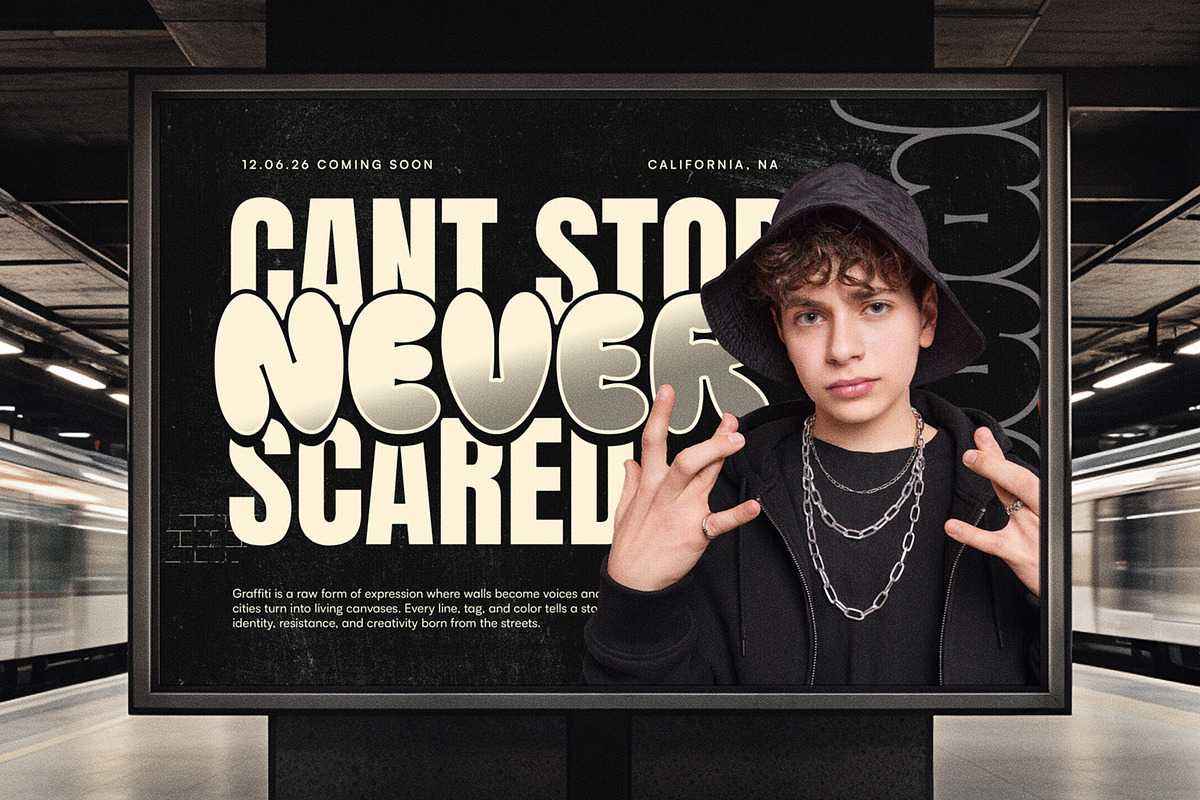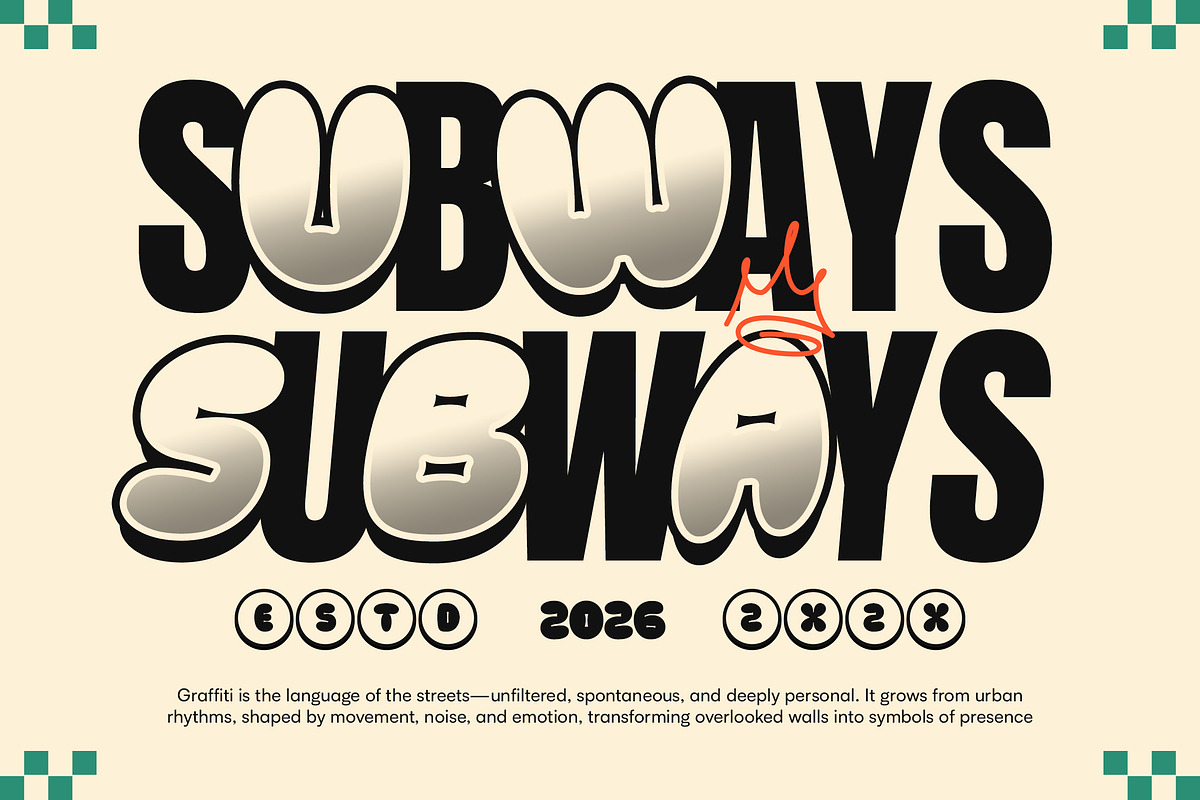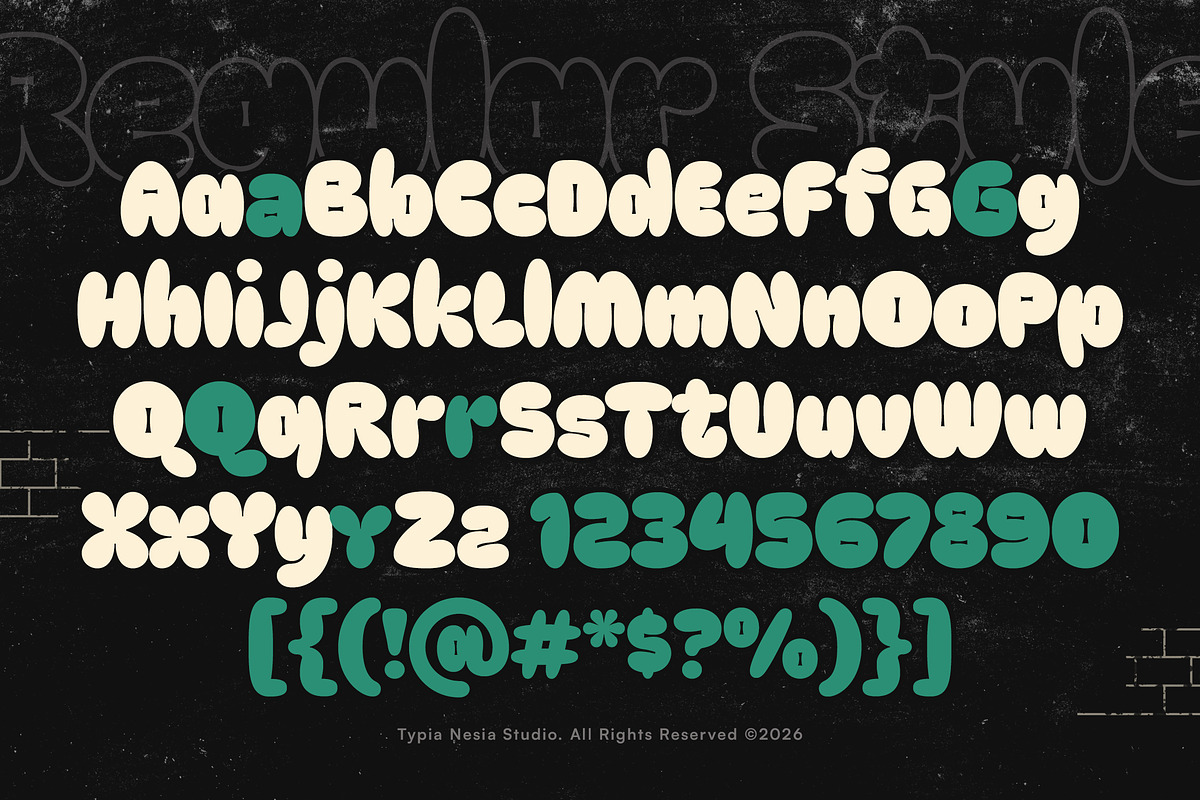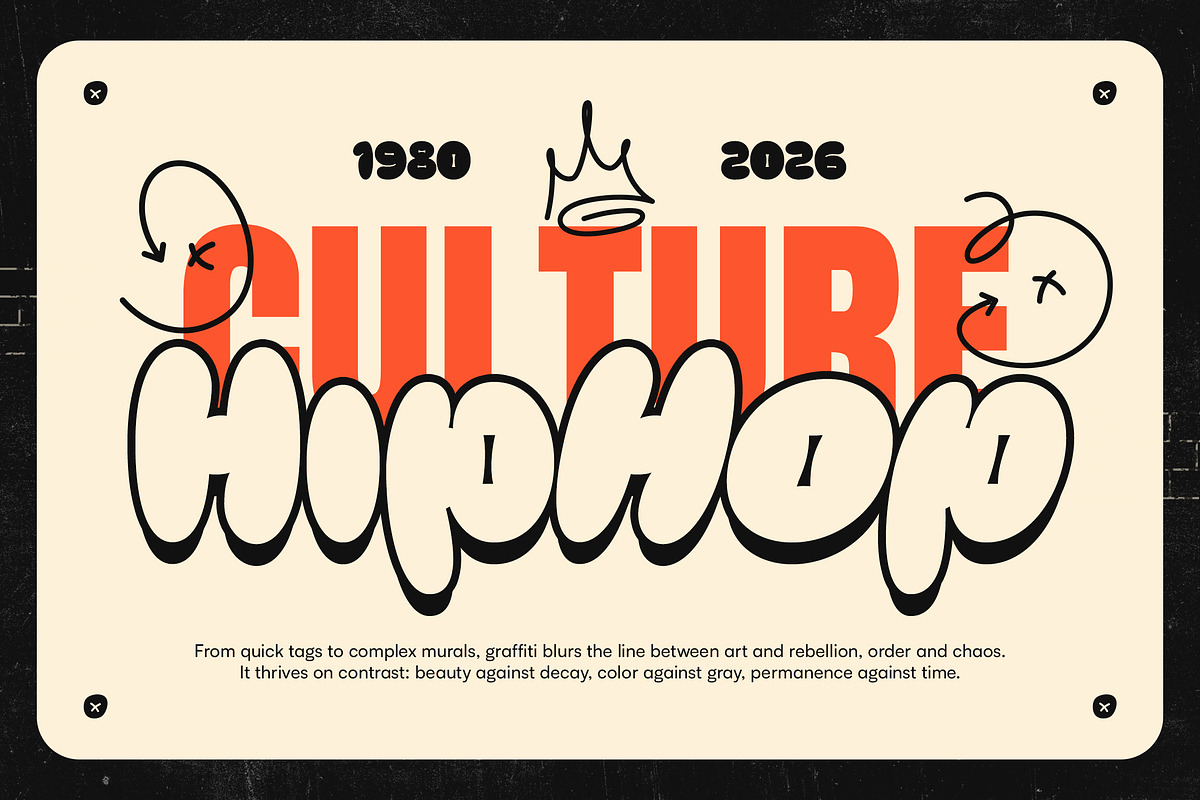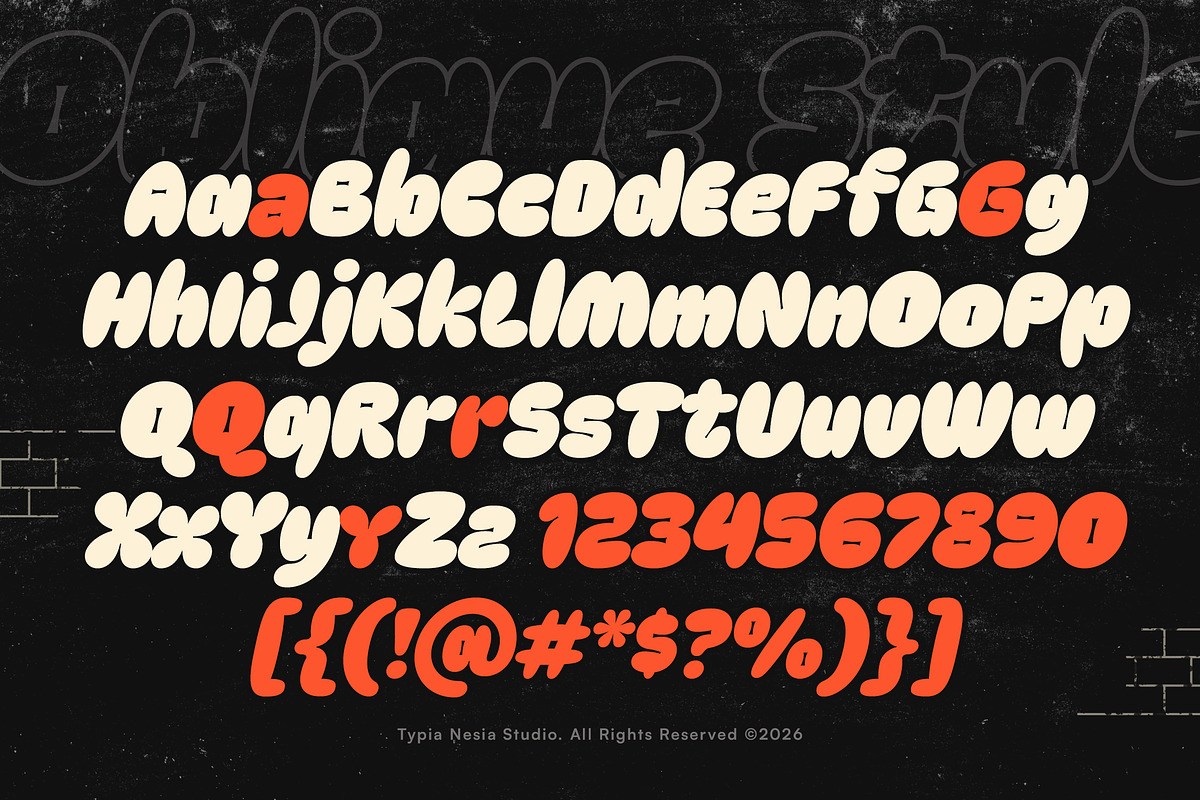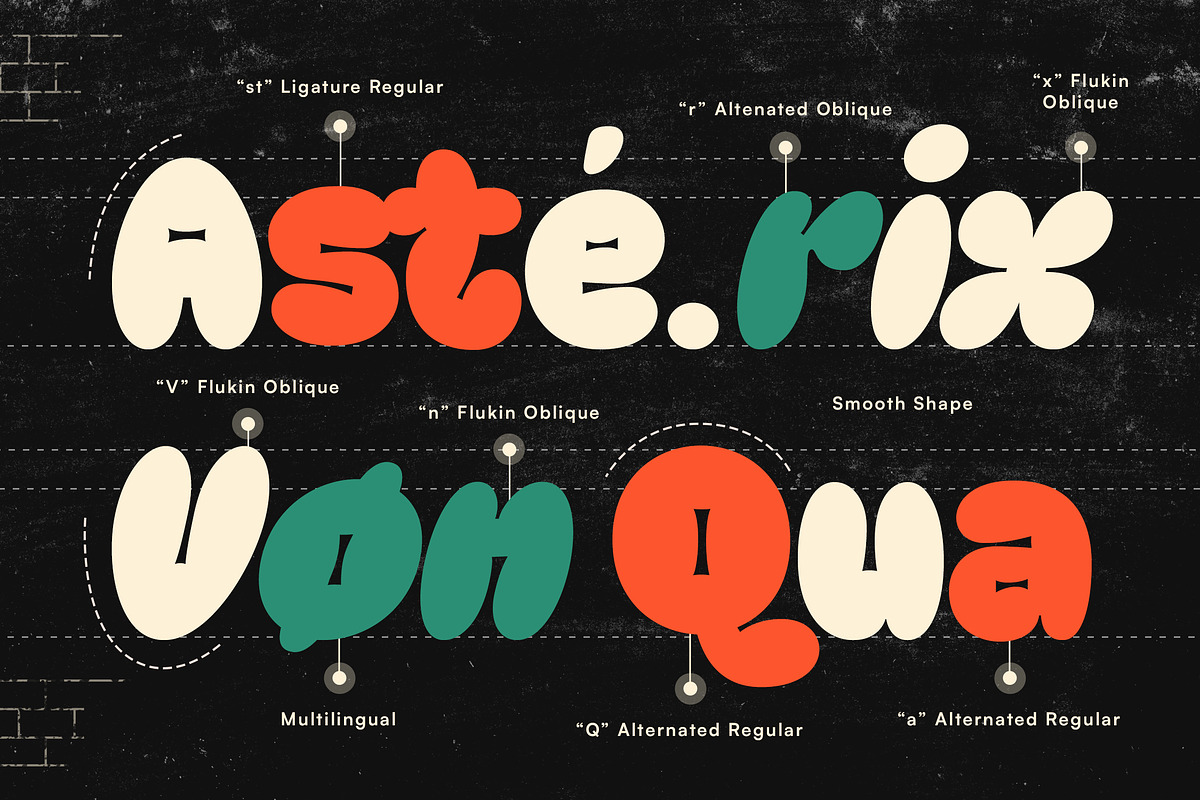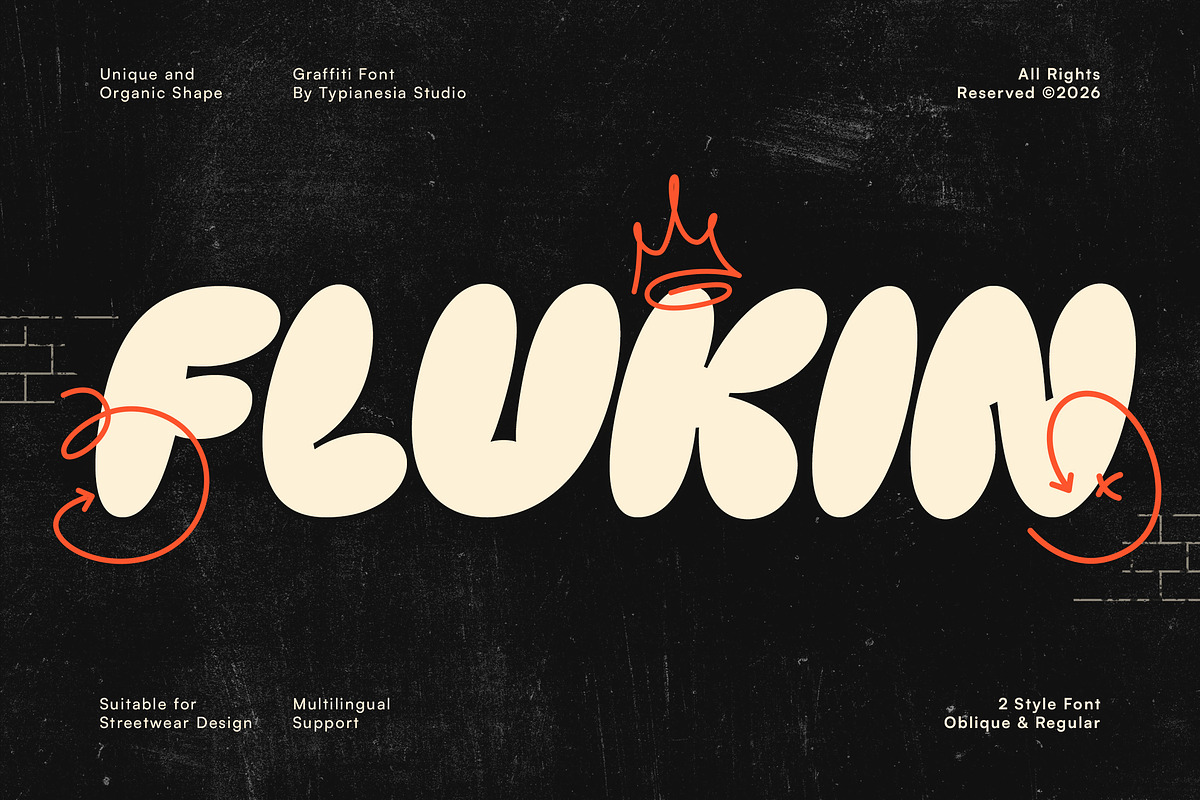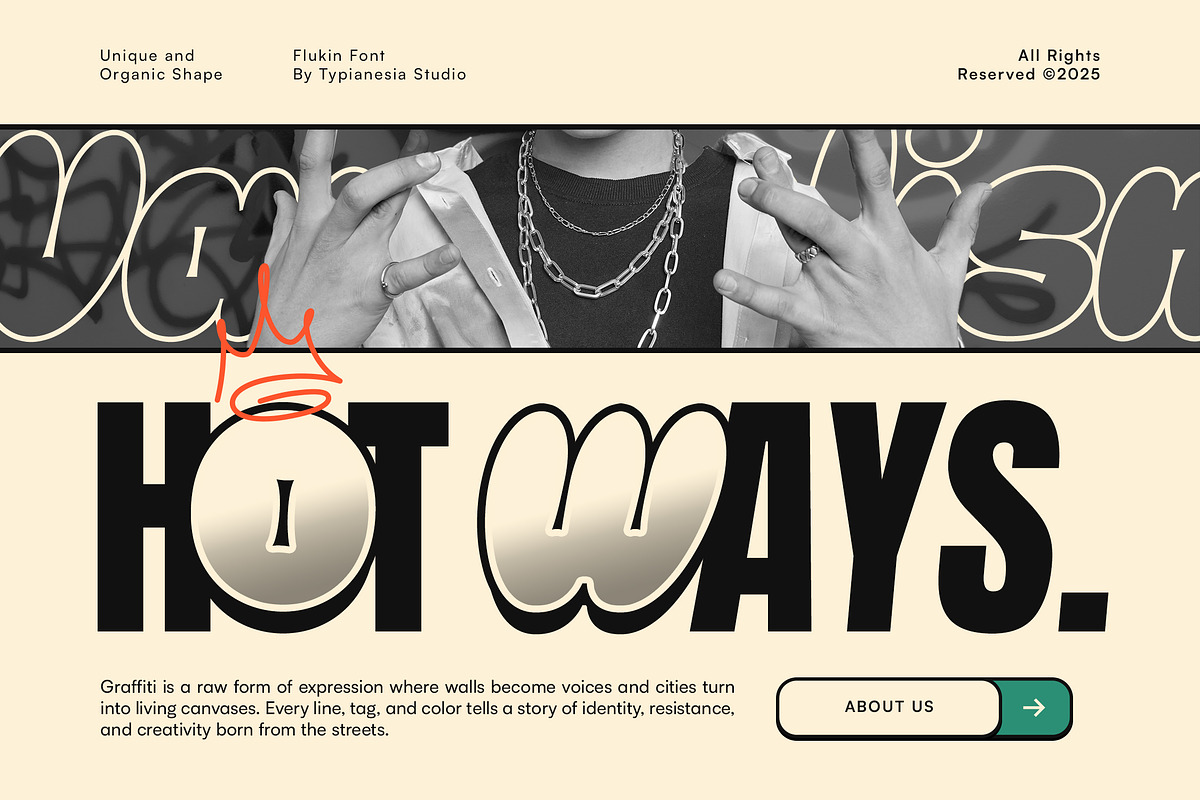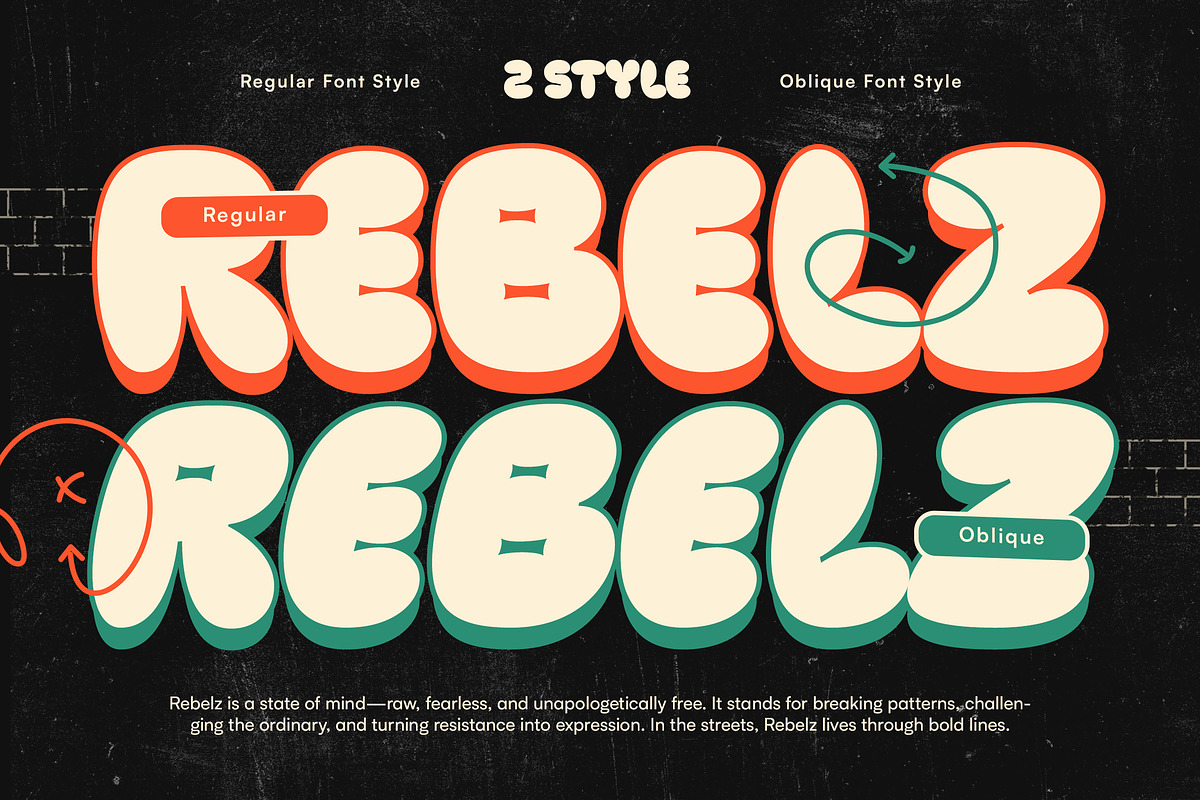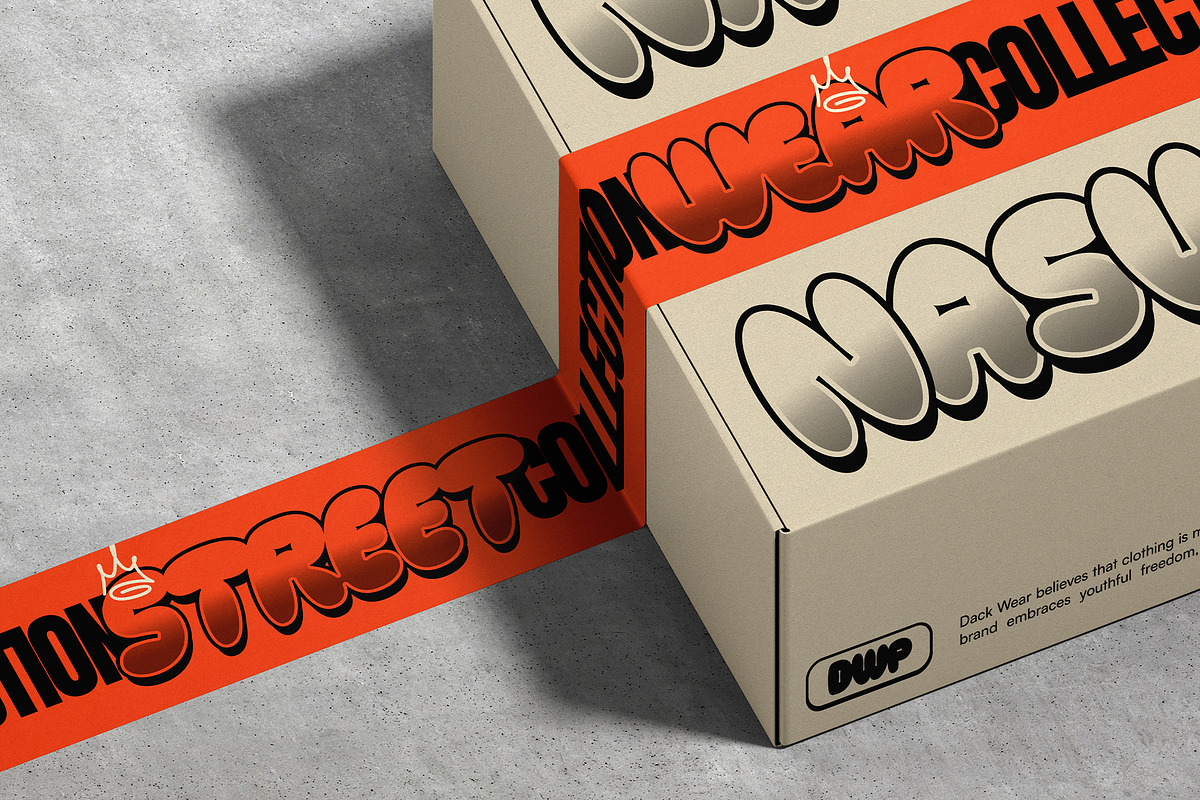
Flukin - Bubble Balloon Graffiti
Flukin - Bubble Balloon Graffiti Font - Playful Bold Street Urban Logo Font
Flukin is a modern bubble balloon graffiti font that blends playful street energy with bold urban style. Inspired by graffiti culture and cartoon aesthetics, this typeface features rounded balloon-like shapes and organic curves that create a fun, expressive, and eye-catching look. Designed with a playful urban character, Flukin brings a vibrant Y2K vibe combined with contemporary street design, making it perfect for logo design, streetwear graphics, music artwork, posters, packaging, branding, cafés, urban-themed visuals, and any project that needs a lively, friendly, and visually impactful presence.